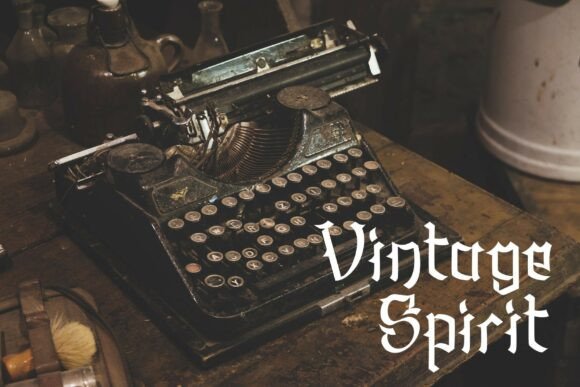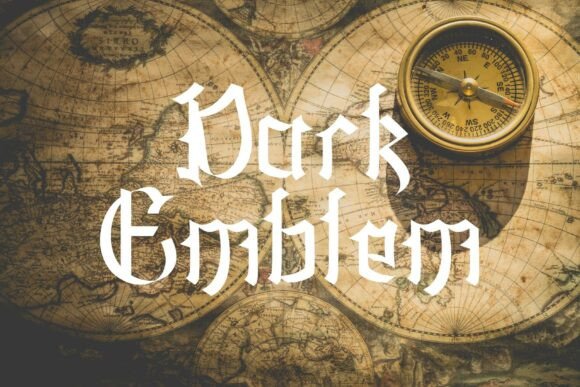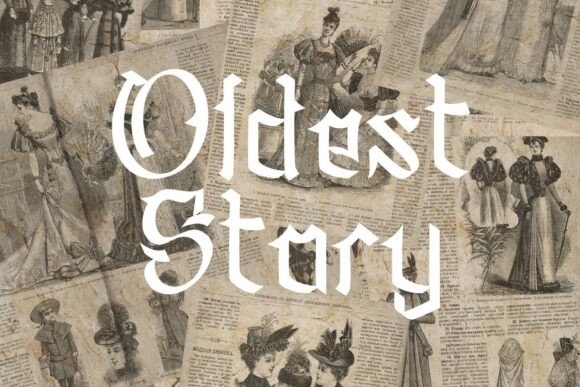
Unlocking the Mystery of the Olden Stones Font
Have you ever stumbled upon an old, dusty book or a vintage poster that transports you to a different era? The intricate details, the ornate flourishes, and the mysterious aura all come together to create an experience that’s nothing short of enchanting. This is exactly what the Olden Stones Font aims to evoke in your designs.
As a designer, you’re constantly on the lookout for unique and high-quality design resources that can elevate your creative projects. The Olden Stones Font is a treasure trove of creative possibilities, offering a dramatic and gothic style that’s perfect for projects requiring a sense of deep heritage or dark, ancient power.
With its complex and visually rich nature, the Olden Stones Font is an invaluable addition to any designer’s toolkit. Whether you’re working on a craft beer label, a band logo, or a historical document, this font is sure to deliver unparalleled visual weight and historical authenticity.
Key Features of Olden Stones Font
- Unique Vintage Style: The Olden Stones Font features a distinctive, vintage aesthetic with intricate details and ornate flourishes, making it perfect for creative projects that require a touch of nostalgia.
- High-Quality Design: This font is designed with high-quality standards in mind, ensuring crisp and clear typography that’s ideal for both digital and print applications.
- Perfect for Creative Projects: The Olden Stones Font is ideal for creative projects that require a unique and vintage aesthetic, such as book covers, album artwork, and advertising materials.
Honest Review: Olden Stones Font
I recently had the opportunity to work with the Olden Stones Font, and I must say, it’s been a game-changer for my creative projects. ✨ The high-quality design and transparent background make it a perfect resource for any designer looking to add a vintage touch to their work.
The font is incredibly versatile and can be used for a wide range of projects, from posters to book covers. The free download option is also a huge plus, making it accessible to designers of all levels.
Here are some of the key features that I appreciate about the Olden Stones Font:
- Unique and stylish design
- High-quality image with a transparent background
- Perfect for adding a vintage touch to creative projects
While the Olden Stones Font is an excellent resource, there are a few limitations to consider: ⚠️ the font may not be suitable for all projects, and the design can be quite bold, so it’s best used sparingly.
Overall, I’m thoroughly impressed with the Olden Stones Font. It’s a valuable addition to any designer’s toolkit, and I highly recommend it for any creative project that requires a high-quality, vintage-inspired font.
Introduction to Olden Stones Font
Olden Stones Font is a high-quality design resource ideal for creative projects that require a unique and vintage touch. This font is available for free download and offers a transparent background, making it easy to use in various design applications.